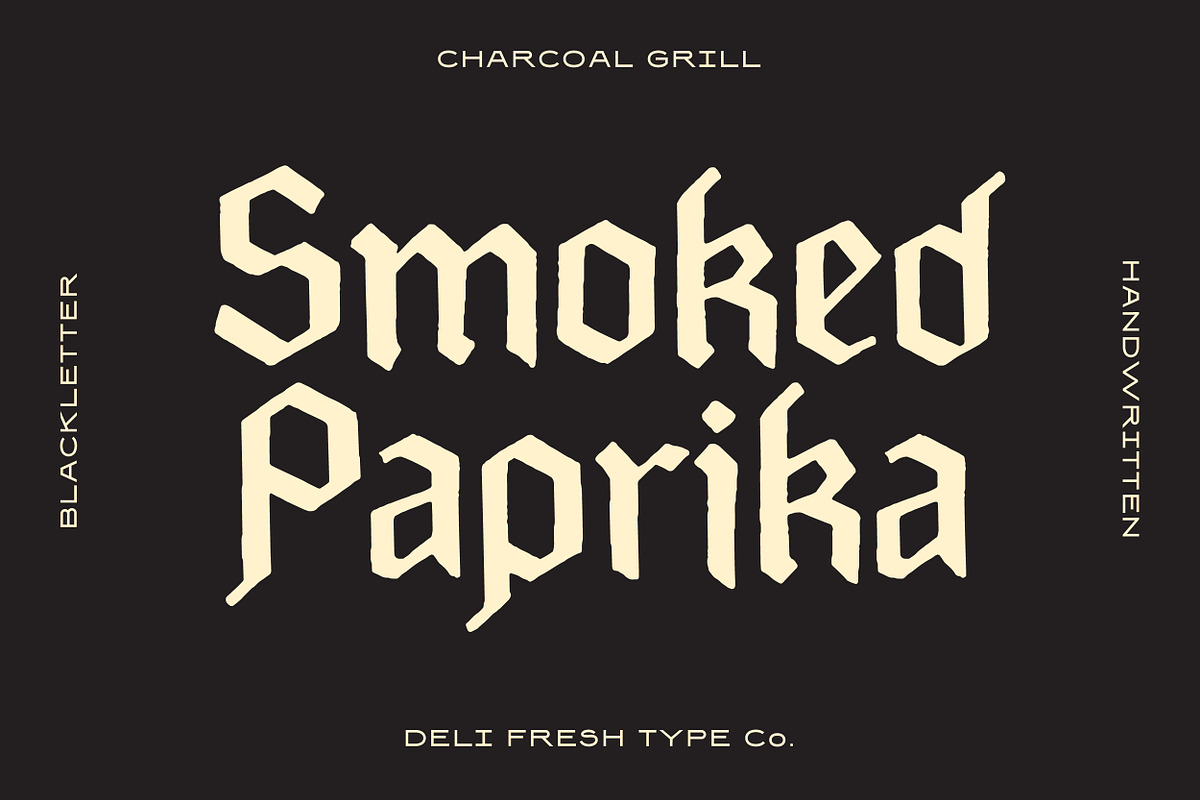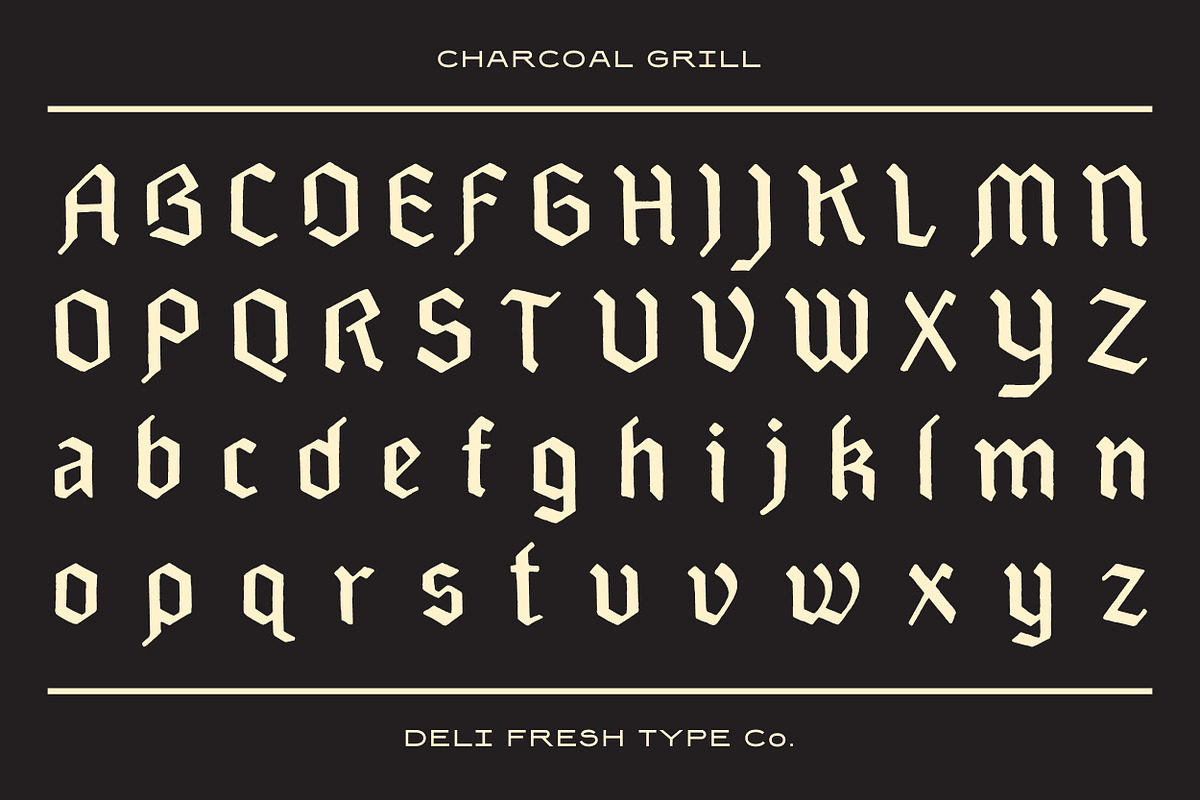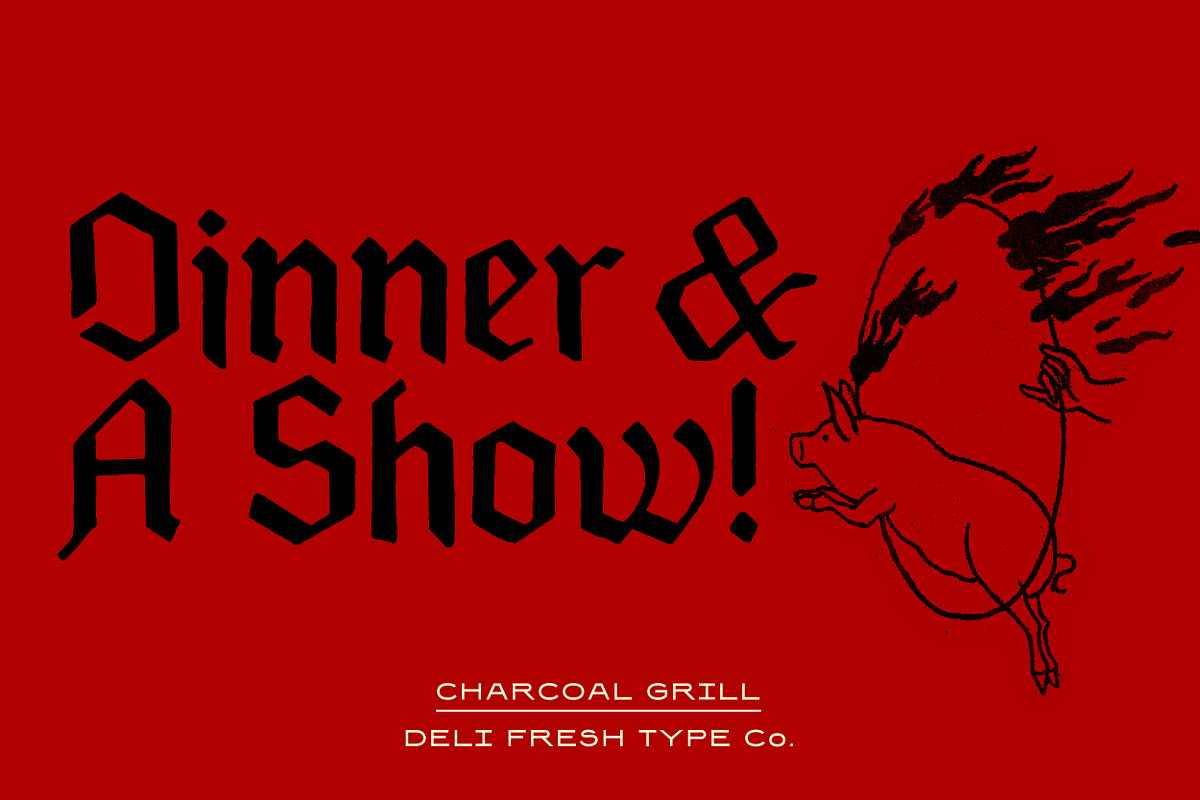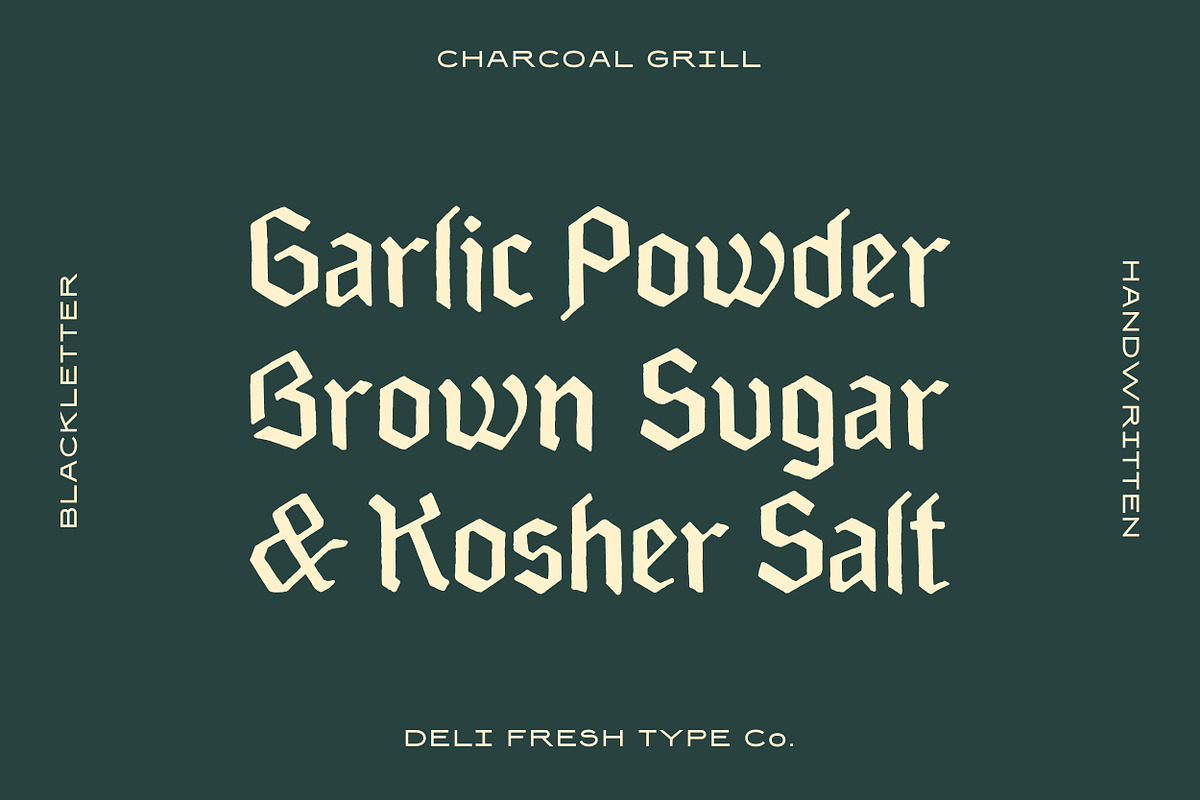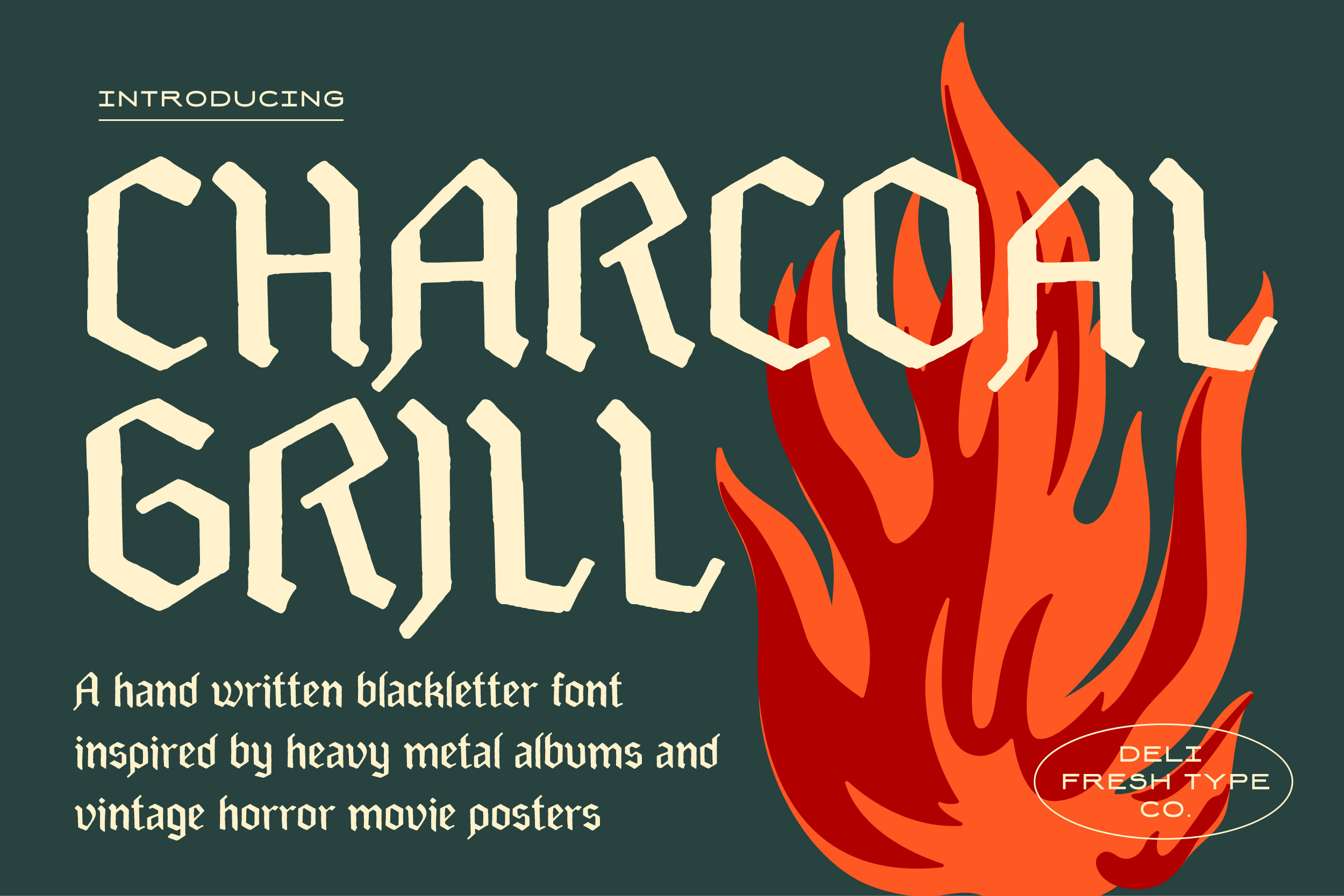
Charcoal Grill: A Blackletter Font
A handwritten blackletter font inspired by heavy metal albums and vintage horror movie posters.
This retro typeface comes with uppercase letterforms, lowercase letterforms, numerals, and a smattering of special characters.